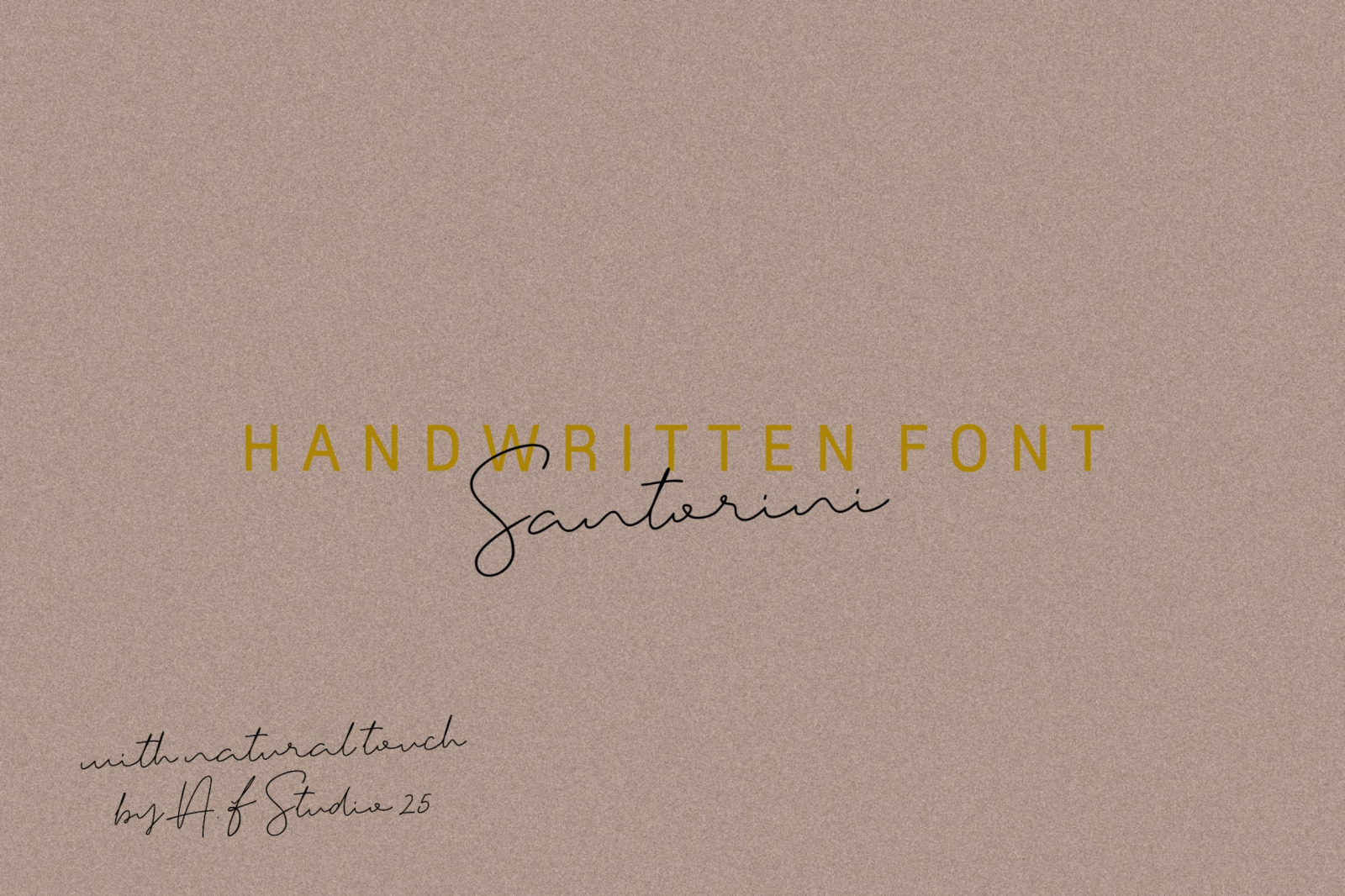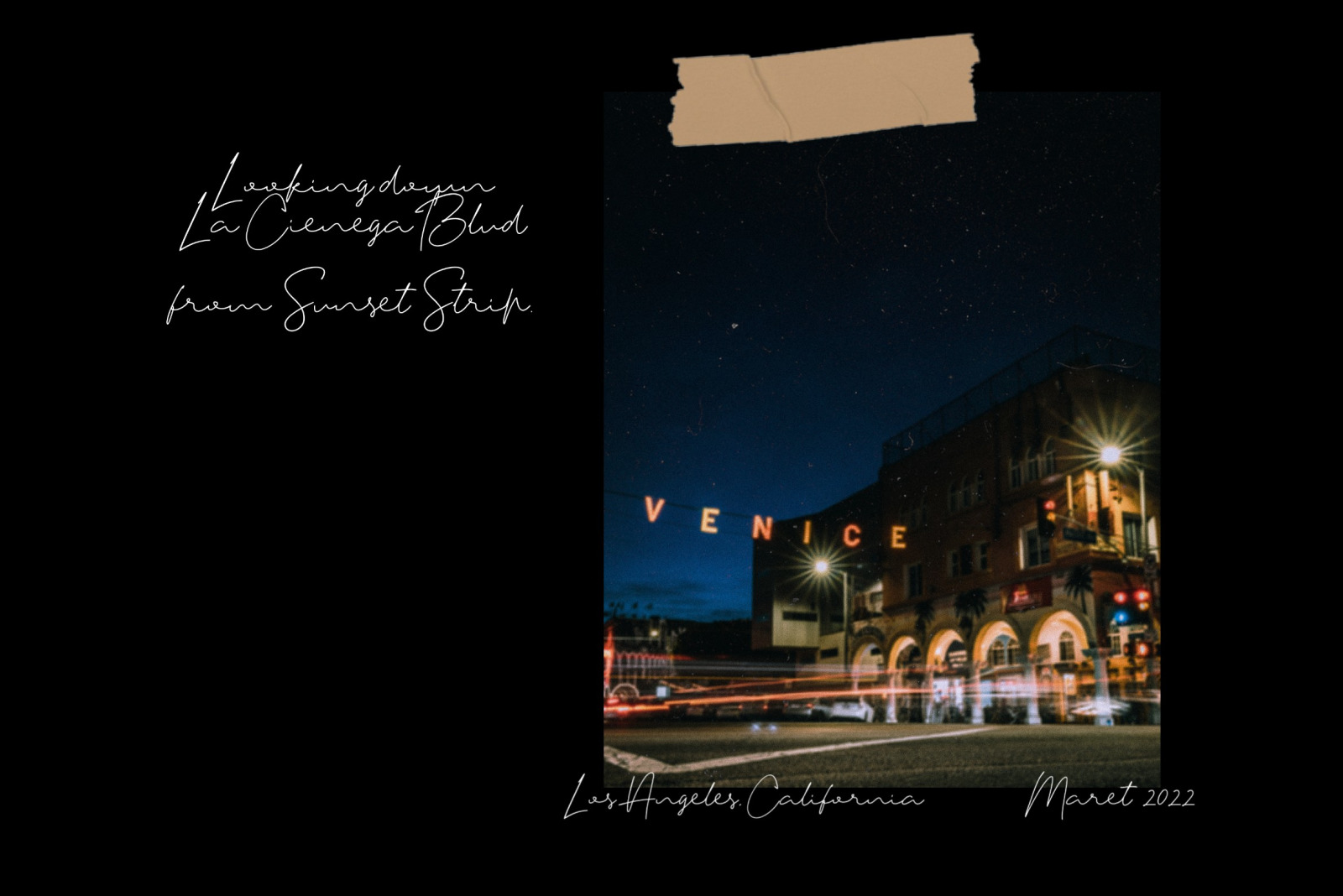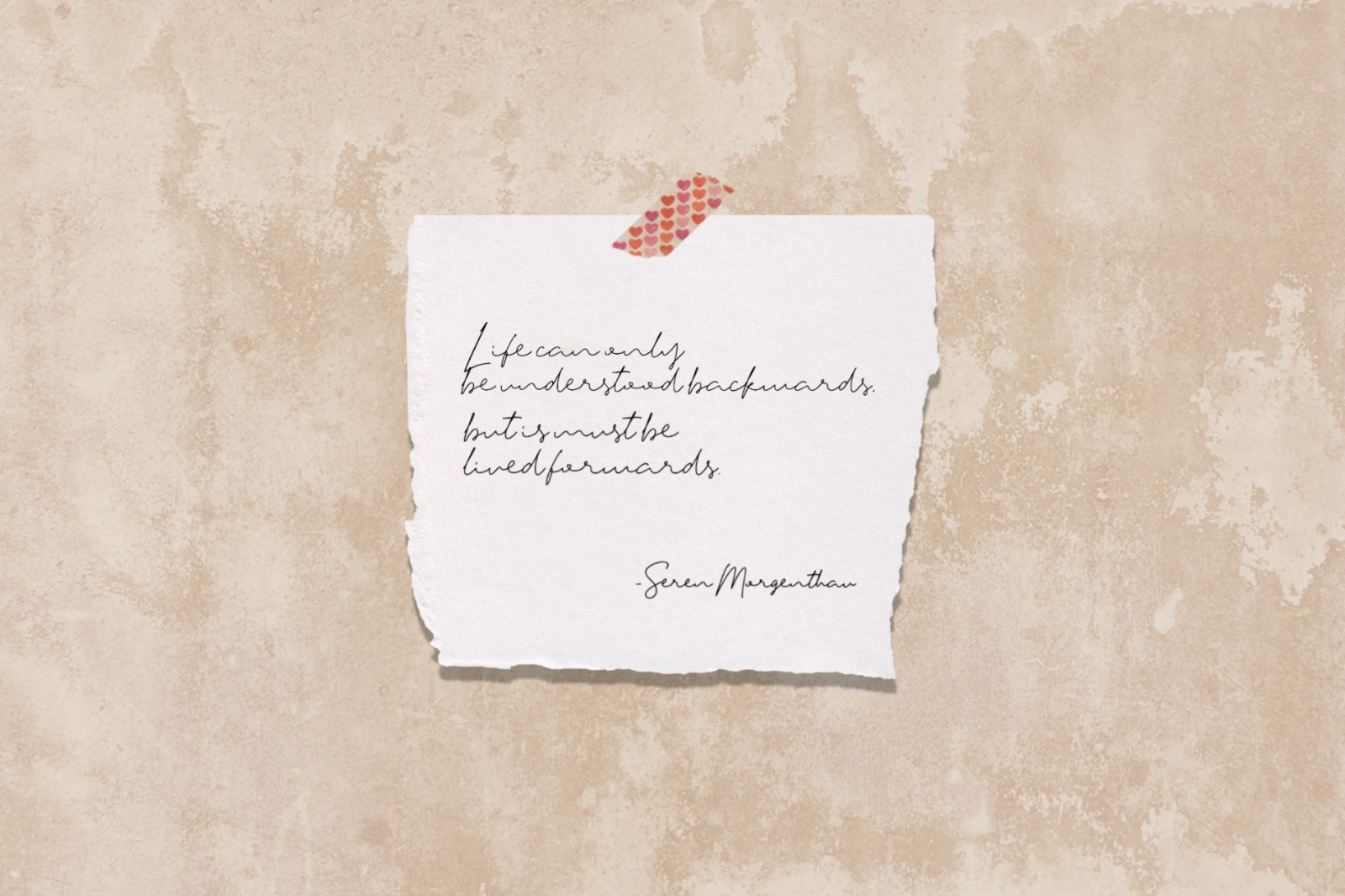
Santorini - Handwritten Font
"Santorini"
I had this project in my mind for a long time. As a graphic designer who works a lot in creating a font, we are often asked to design a logo with a signature style, but with a true hand lettering feel. So, this font is the embodiment of this idea. This is perfect for BRANDING. Maybe nothing else, but for BRANDING. You won't get a cute, quirky and funny logo with this font.
Only high-end, high-end Branding Designs.
Santorini also includes a full set of upper and lower case letters, numbers, punctuation marks. This font has a smooth monoline texture, so it will be perfect for all kinds of printing techniques etc.